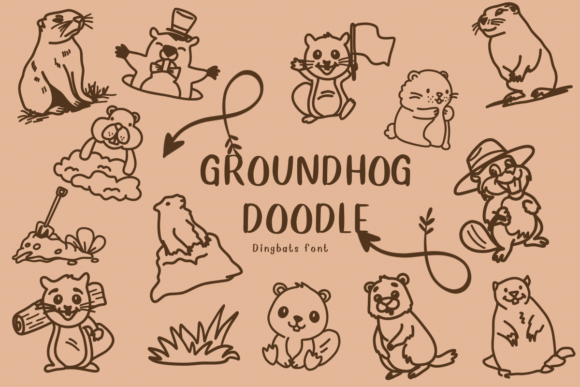
Bring a Touch of Whimsy to Your Designs
We’ve all been there – staring at a blank page, pencil in hand, trying to come up with the perfect idea. But what if that idea was already waiting for you, hidden in a font that’s equal parts cute and creative? For designers and crafty enthusiasts alike, the Groundhog Doodle Font is a game-changer. This charming hand-drawn font is made up of adorable doodles that bring a smile to your face and a touch of personality to your projects.
Whether you’re working on a card, a craft, or a fun design project, the Groundhog Doodle Font is the perfect addition. Its simple yet playful design makes it easy to use, and its creative possibilities are endless. For designers, the Groundhog Doodle Font offers a unique opportunity to add a personal touch to their work, setting them apart from the rest. So why settle for ordinary when you can have a font that’s as unique as you are?
Groundhog Doodle Font Key Features
- Unique Characteristics: The Groundhog Doodle Font features a whimsical, hand-drawn design with intricate doodles and patterns, adding a playful touch to any text-based design.
Groundhog Doodle Font Review
Overall, I’d say the Groundhog Doodle Font is a cute and quirky addition to any design project. Here’s what I like about it:
- ✨ Hand-drawn aesthetic: The font has a lovely, hand-drawn feel that adds a touch of whimsy and personality to your designs.
- ✨ Versatility: The font is suitable for a wide range of applications, from children’s books to advertising campaigns.
- ✨ Customization options: The font comes with various styles and layouts, allowing you to mix and match to suit your design needs.
- ⚠️ Limited legibility: At small font sizes, the hand-drawn aesthetic can sometimes make the text difficult to read.
- ⚠️ Limited character set: The font may not include all the characters you need, such as accents or special symbols.
Overall, I’d give the Groundhog Doodle Font 4 out of 5 stars. While it’s not perfect, it’s a fun and creative addition to any design project. With a little experimentation and tweaking, you can create some truly unique and eye-catching designs.
Tips for Getting the Most Out of the Groundhog Doodle Font
For the best results, use the Groundhog Doodle Font in conjunction with other playful and whimsical design elements, such as doodles and illustrations. Experiment with different font sizes and styles to create a unique and eye-catching design.
The Groundhog Doodle Font is perfect for:
- Children’s birthday party invitations
- Playful social media graphics
- Whims